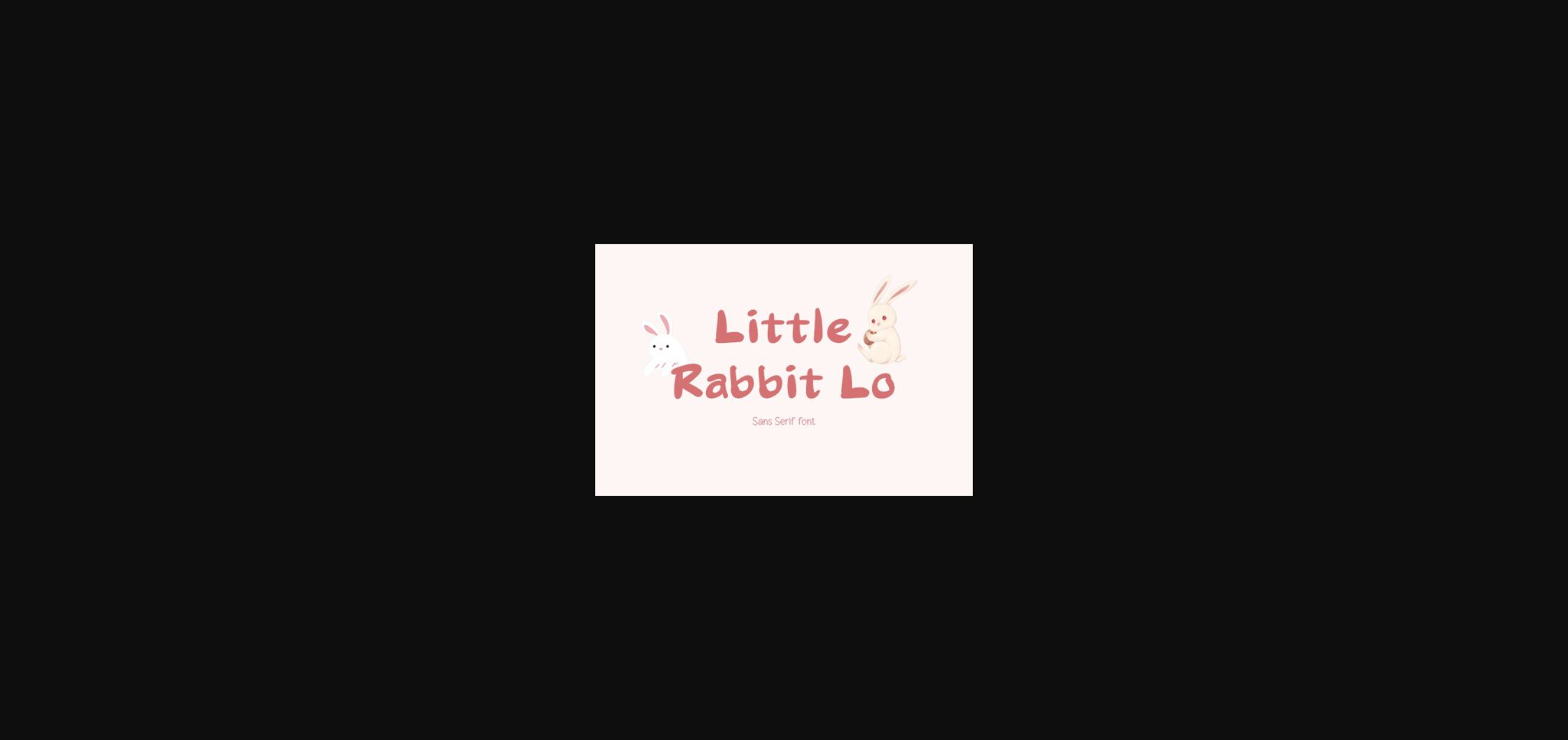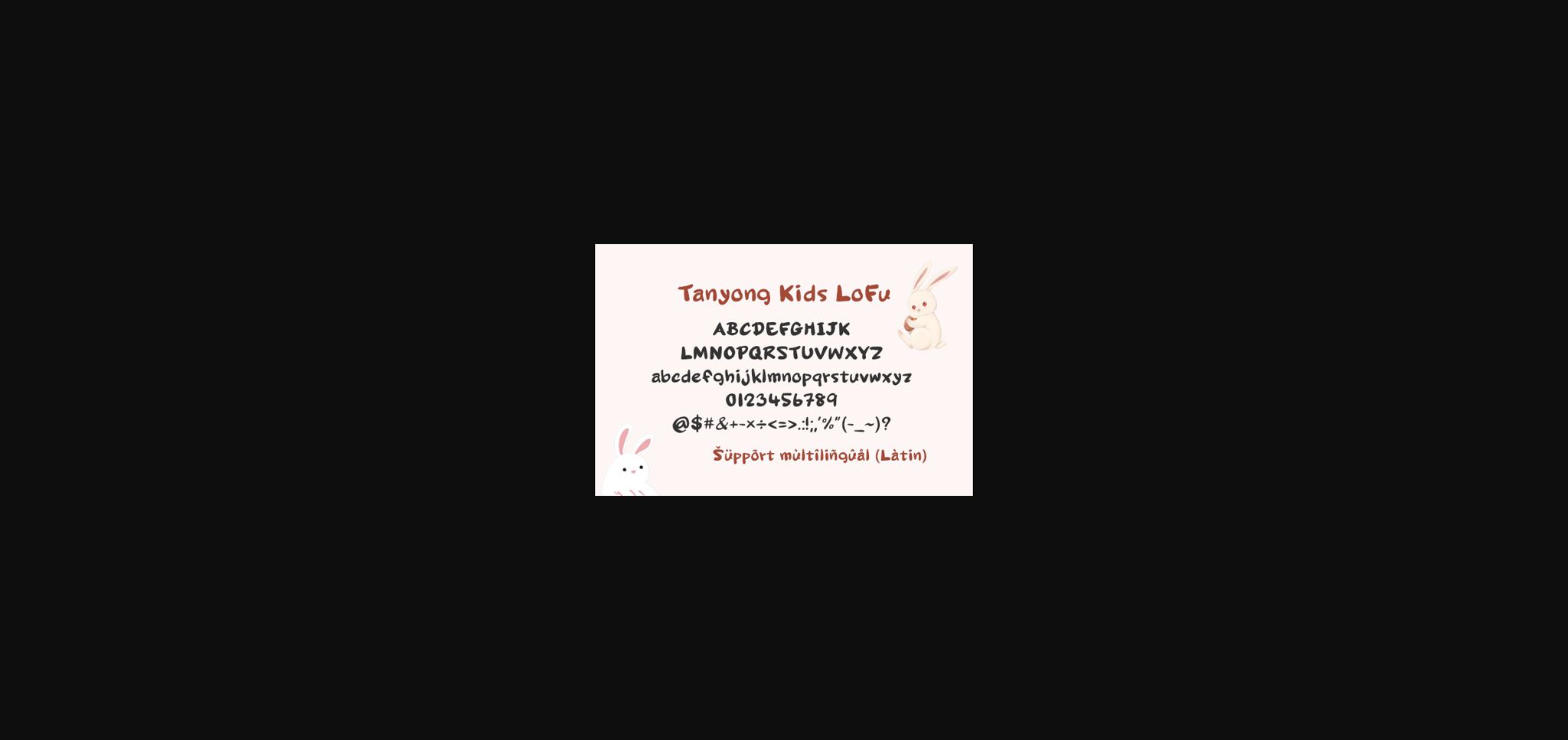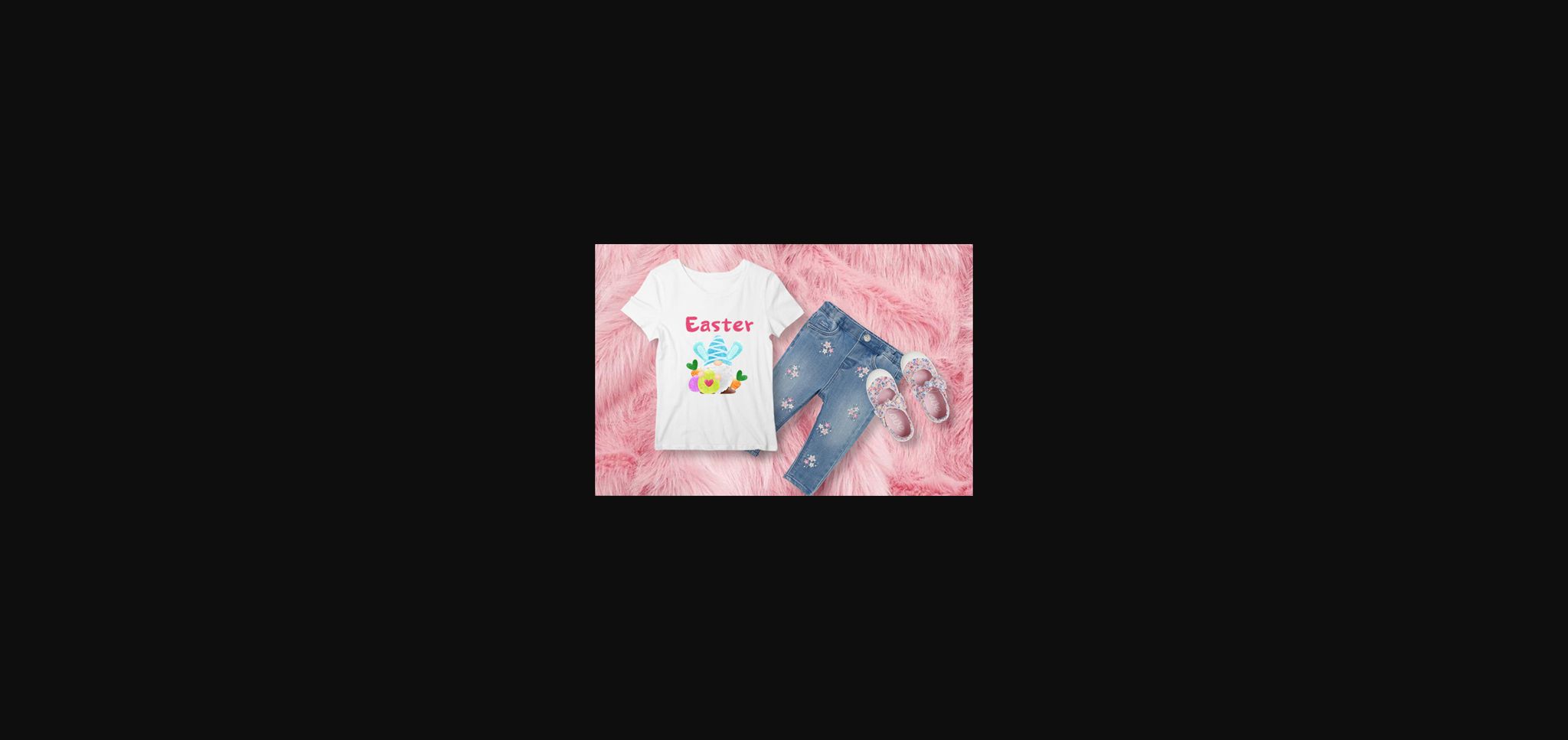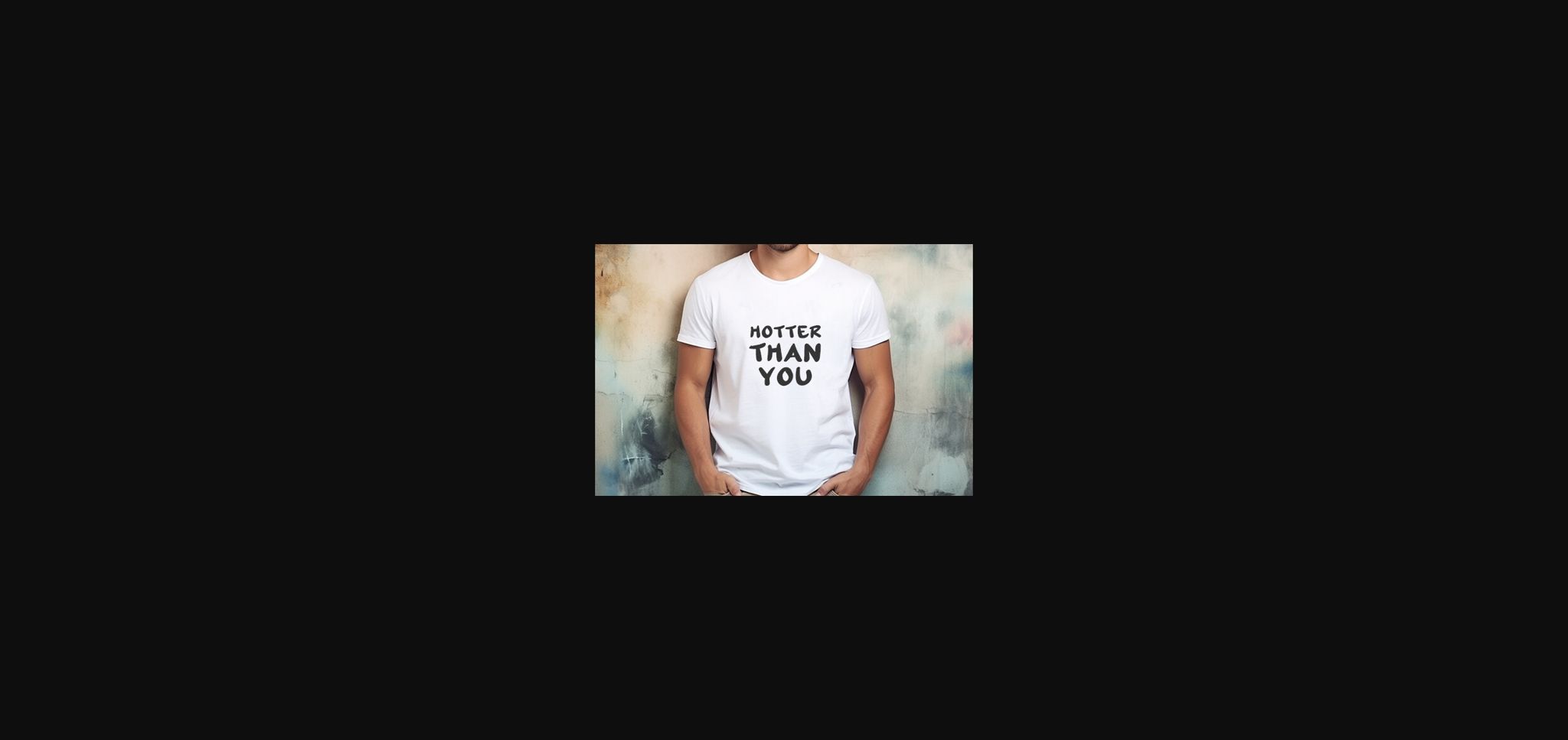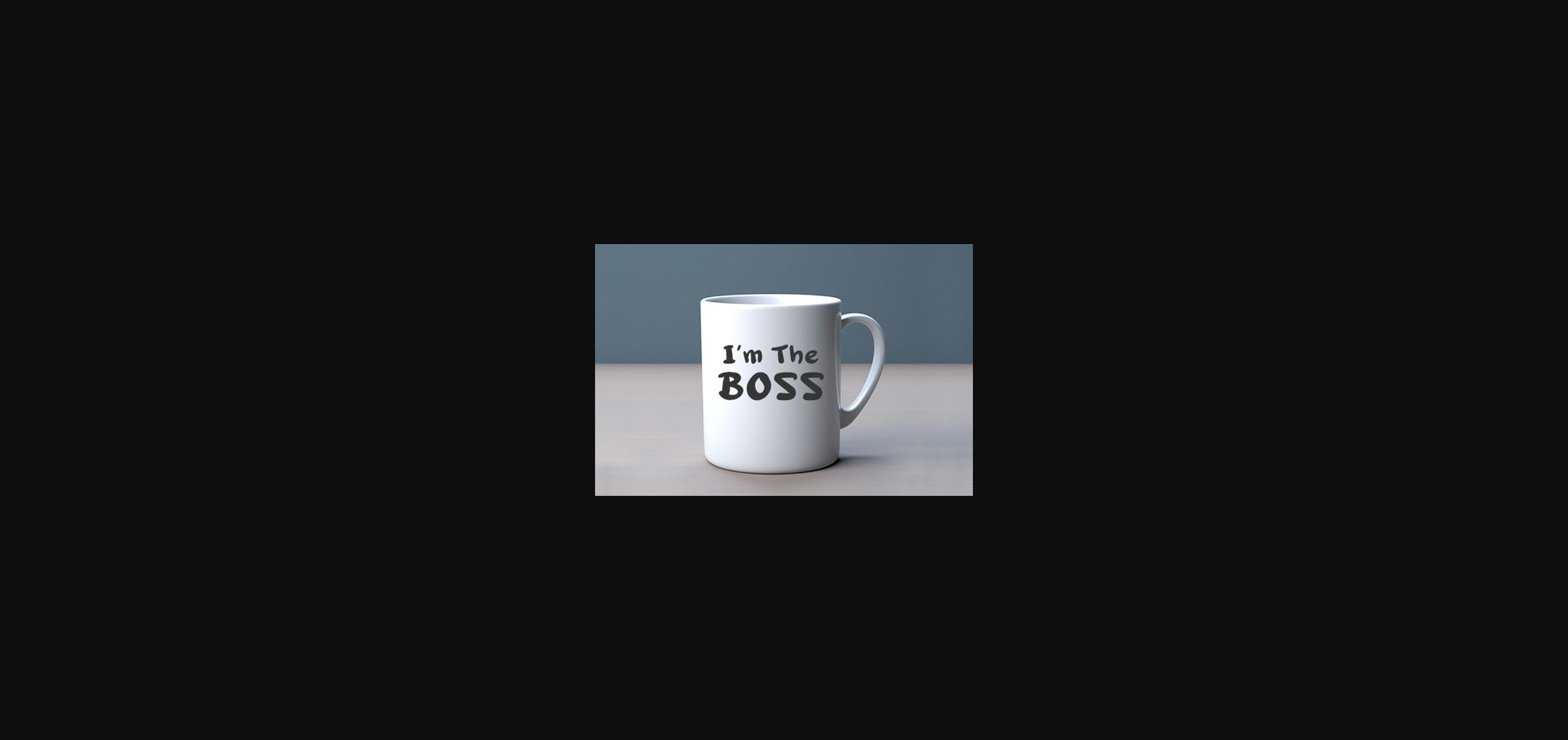
Little Rabbit Lo Font
About Little Rabbit Lo Font
Little Rabbit Lo is a thick-lettered, playful and whimsical sans serif font. This font is perfect for a wide spectrum of applications such as headlines, thank you cards, quotes, greeting cards, logos, posters, blogs, bag, T Shirt, clothing and many more! It will bring any of your DIY projects to life.